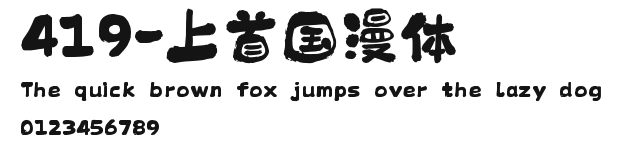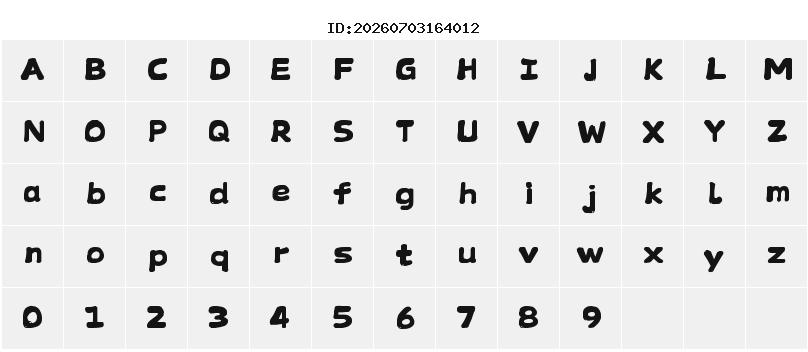
419-上首国漫体 Preview
• Font Name: 419-上首国漫体
• Font ID: 419-SSGuoManTi:Version 4.00
• Full Font Name: 419-上首国漫体
• Version: Version 4.00 March 16, 2026
• PostScript Name: 419-SSGuoManTi
• Character Count: 7603
• Manufacturer: 上首造字
About 419-上首国漫体.ttf
419-上首国漫体.ttf is a modern, elegant sans-serif font designed for ultimate readability and visual harmony. Perfect for branding, headlines, web design, and print materials.